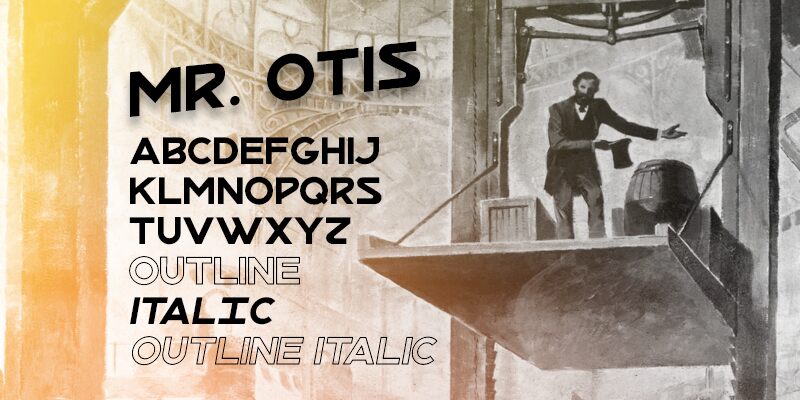
Inspired by a font used in an elevator plaque. Offered as donationware, so you can test and see if it fits your needs. Mr Otis (1811-61) was guy who invented a safety device that prevents elevators from falling if the hoisting cable fails.
Made by Fontourist 2017.
MrOtis
MrOtis is a font made by Fontourist.
MrOtis is a font by Fontourist, designed by Hans G Meier in 2017. (https://en.wikipedia.org/wiki/Elisha_Otis)